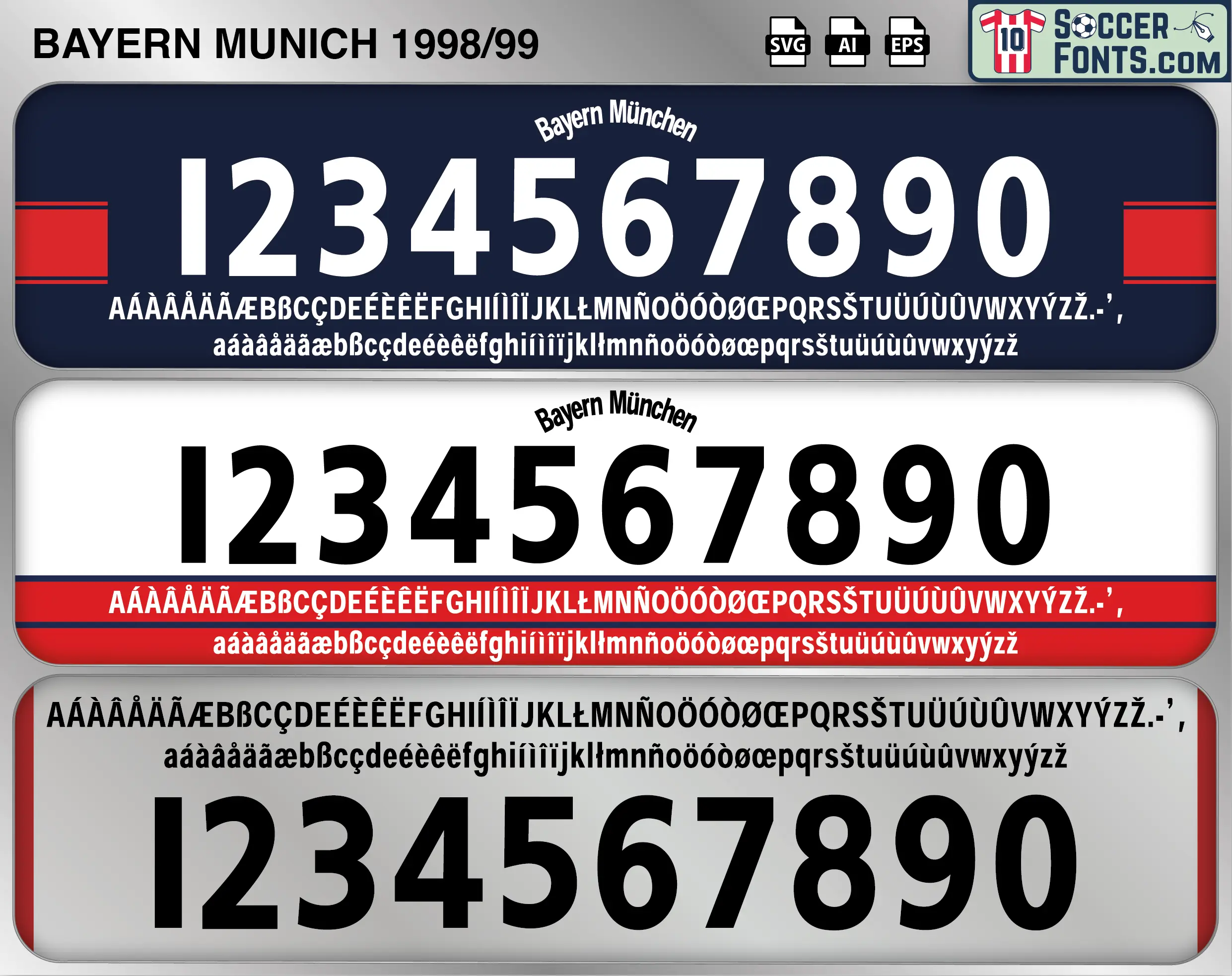
Bayern Munich 1998-99 Font
Download the Bayern Munich 1998-99 font, an editable soccer jersey lettering design in vector format inspired by the Bayern Munich kit style used during the 1998-99 football season. This football font artwork is prepared for football shirt recreations, custom jersey projects, football kit mockups and sports graphic design workflows.
The 1998-99 season remains one of the most unforgettable campaigns in Bayern Munich history. Under Ottmar Hitzfeld, Bayern dominated the Bundesliga and secured the German championship with a commanding advantage, while a squad featuring Oliver Kahn, Lothar Matthäus, Stefan Effenberg, Mehmet Scholl, Mario Basler, Giovane Élber and Carsten Jancker competed deep into multiple competitions. The Bayern Munich 1998-99 font belongs to an era when the club combined established German internationals with experienced European talent and reinforced its position among the continent’s elite. Bayern’s domestic strength provided the foundation for an extraordinary UEFA Champions League campaign that would ultimately define the season in football history.
Bayern progressed from a difficult Champions League group containing Manchester United and Barcelona before overcoming Kaiserslautern and Dynamo Kyiv in the knockout rounds. The campaign culminated in the famous 1999 Champions League Final at Camp Nou, where Bayern led Manchester United through Basler’s early goal until two stoppage-time goals dramatically reversed the result. The Bayern Munich 1998-99 font is closely connected with shirts worn during that remarkable European journey and with a team that came within moments of completing an historic season. Despite the painful ending in Barcelona, the campaign strengthened the foundations of the side that would soon return to the summit of European football. For collectors and supporters, the Bayern Munich 1998-99 font represents the Hitzfeld era, Effenberg’s leadership, Kahn’s presence and one of the most dramatic chapters in Champions League history.